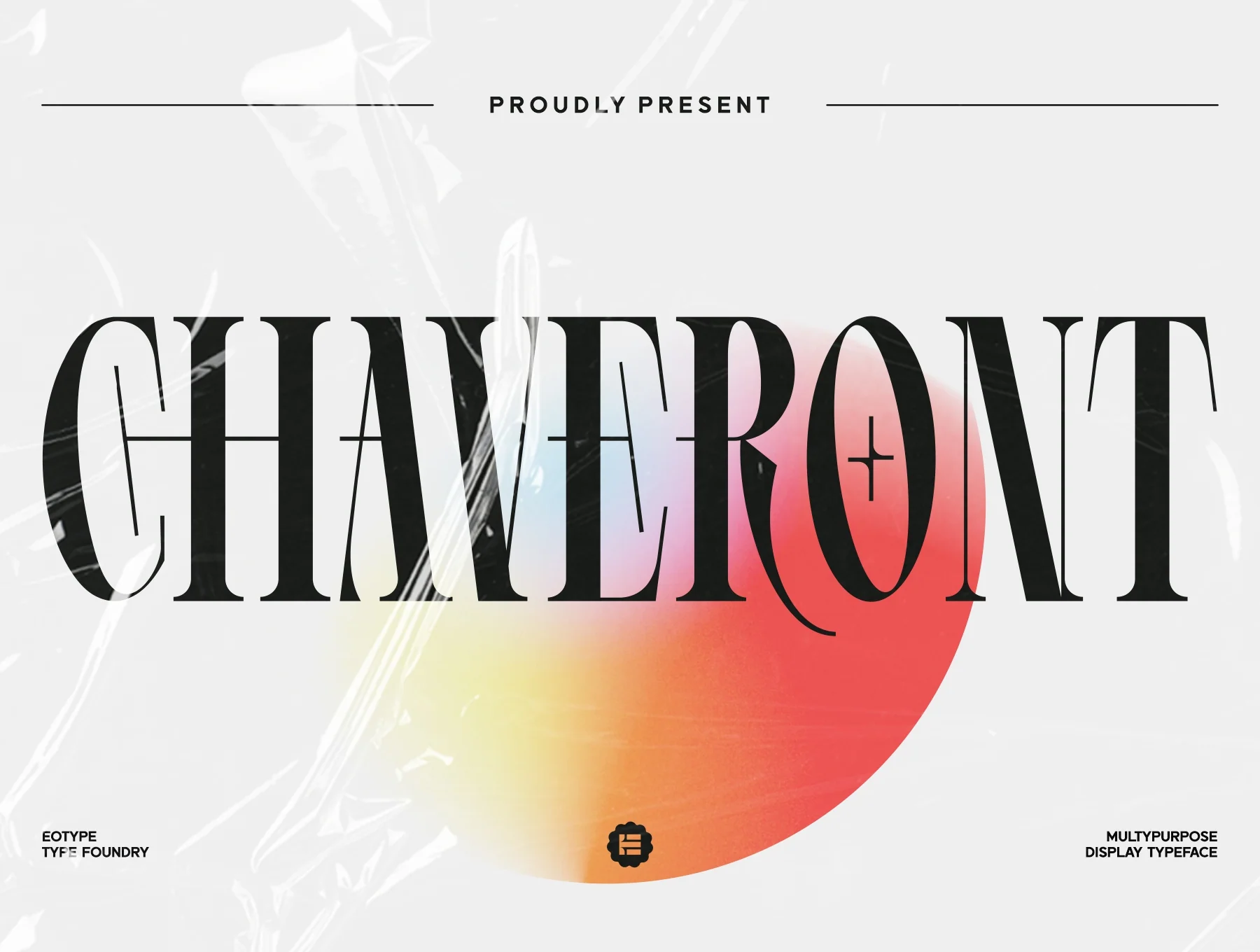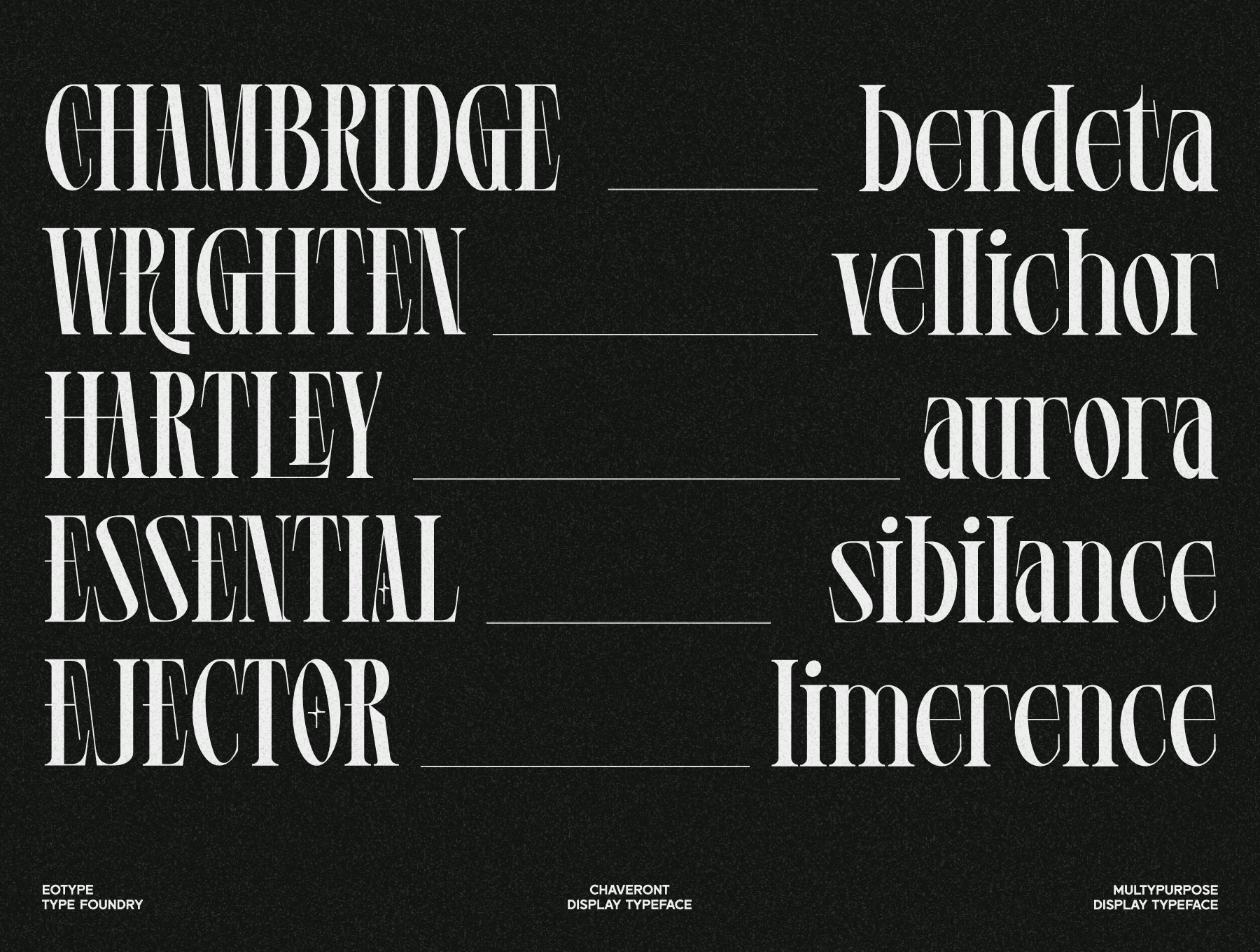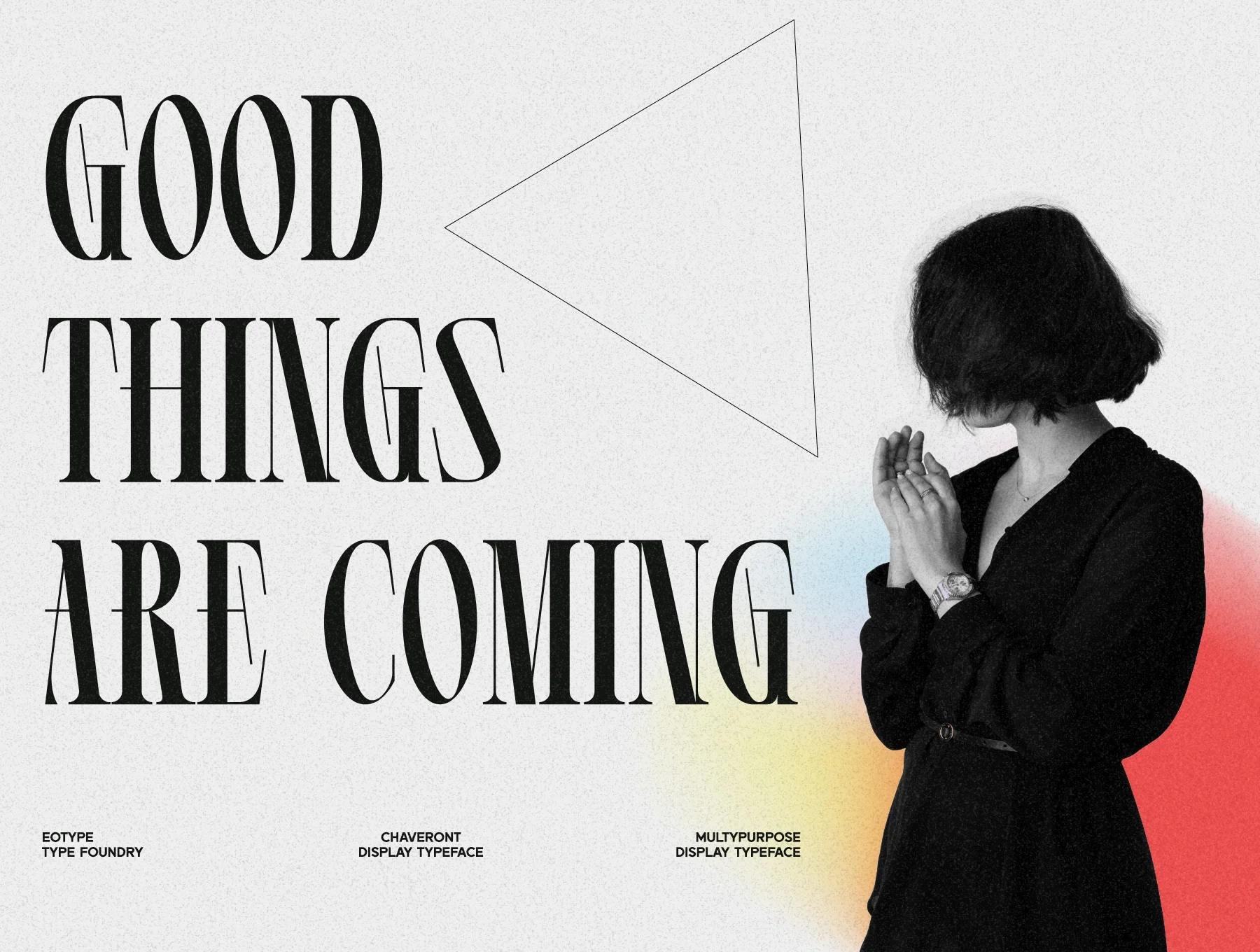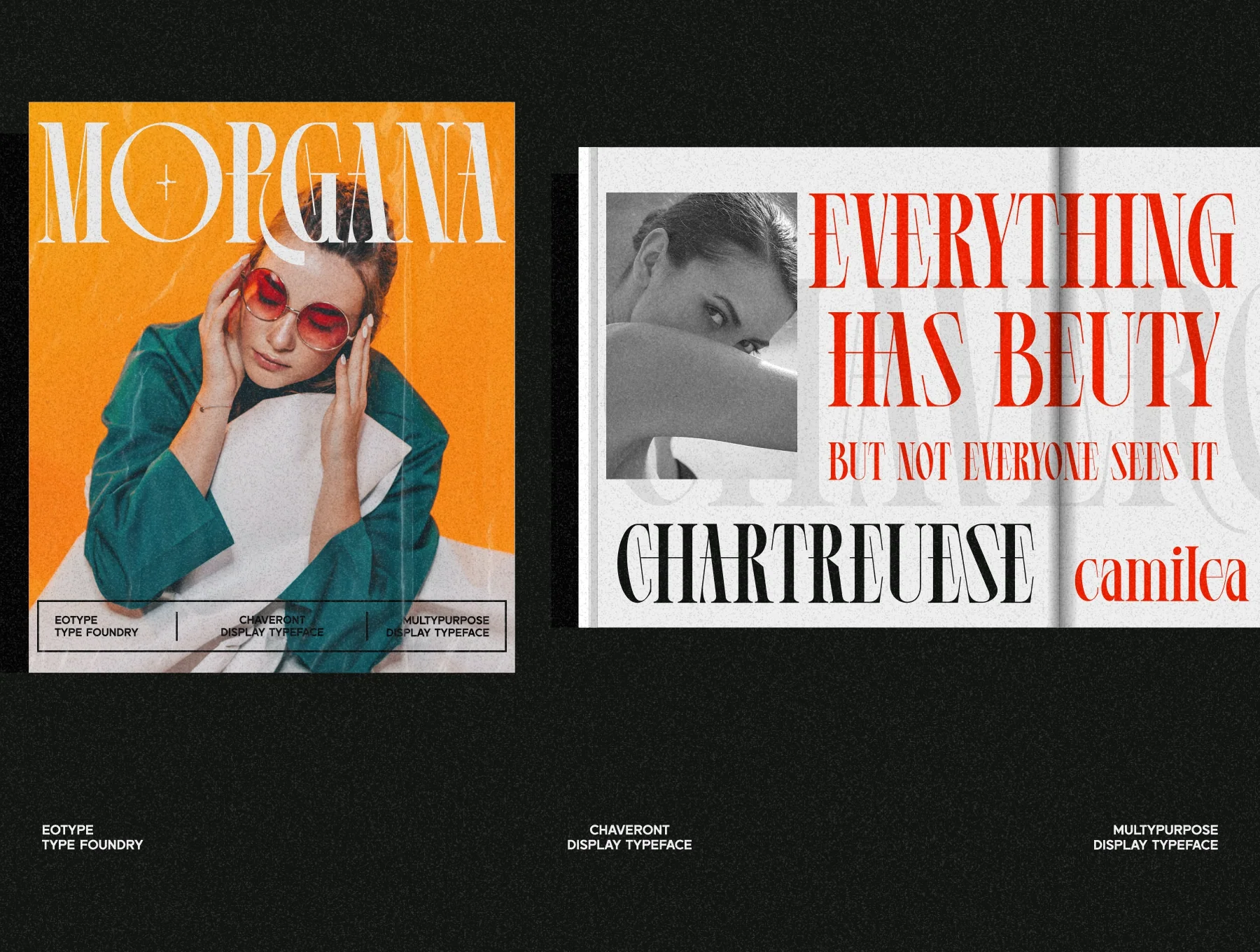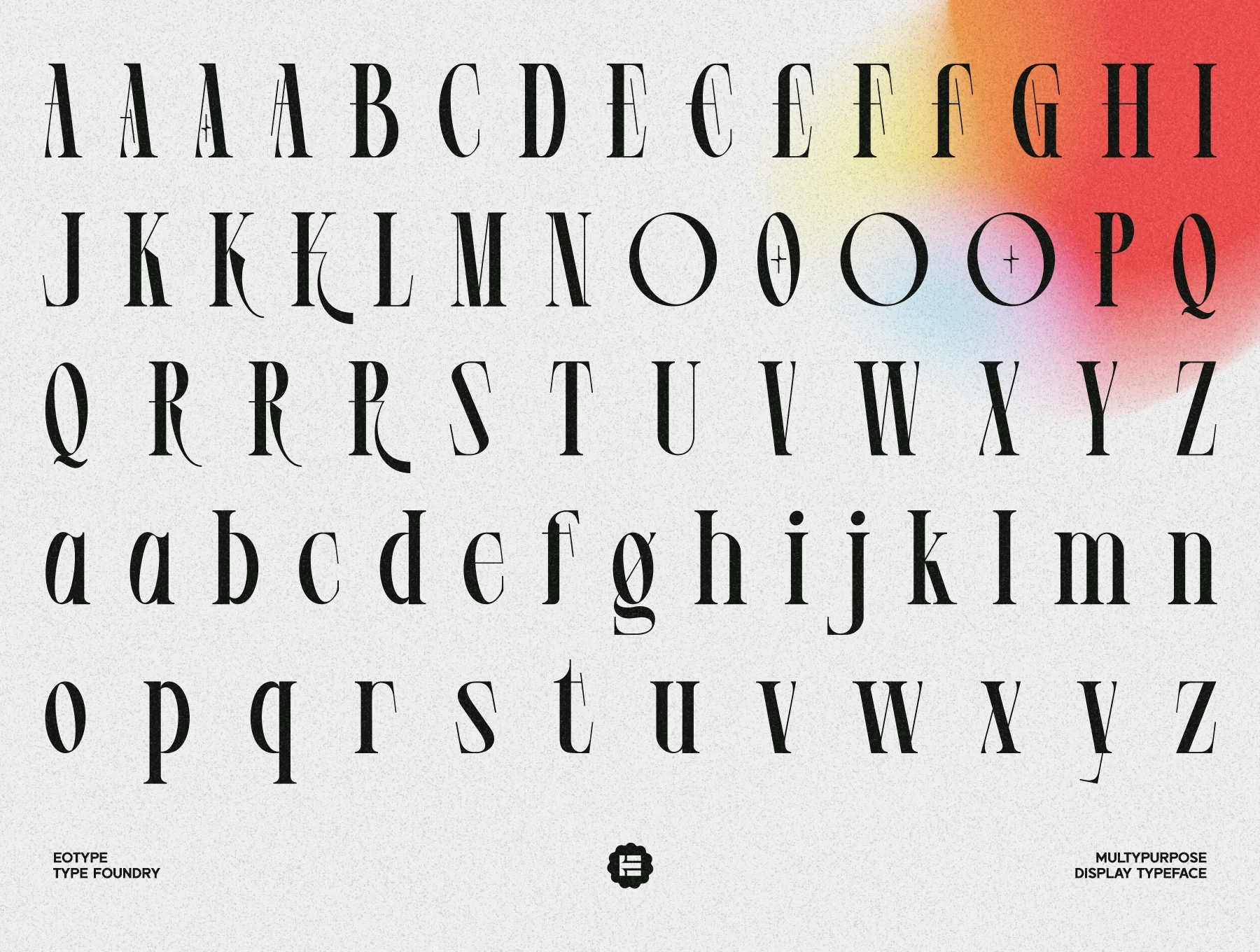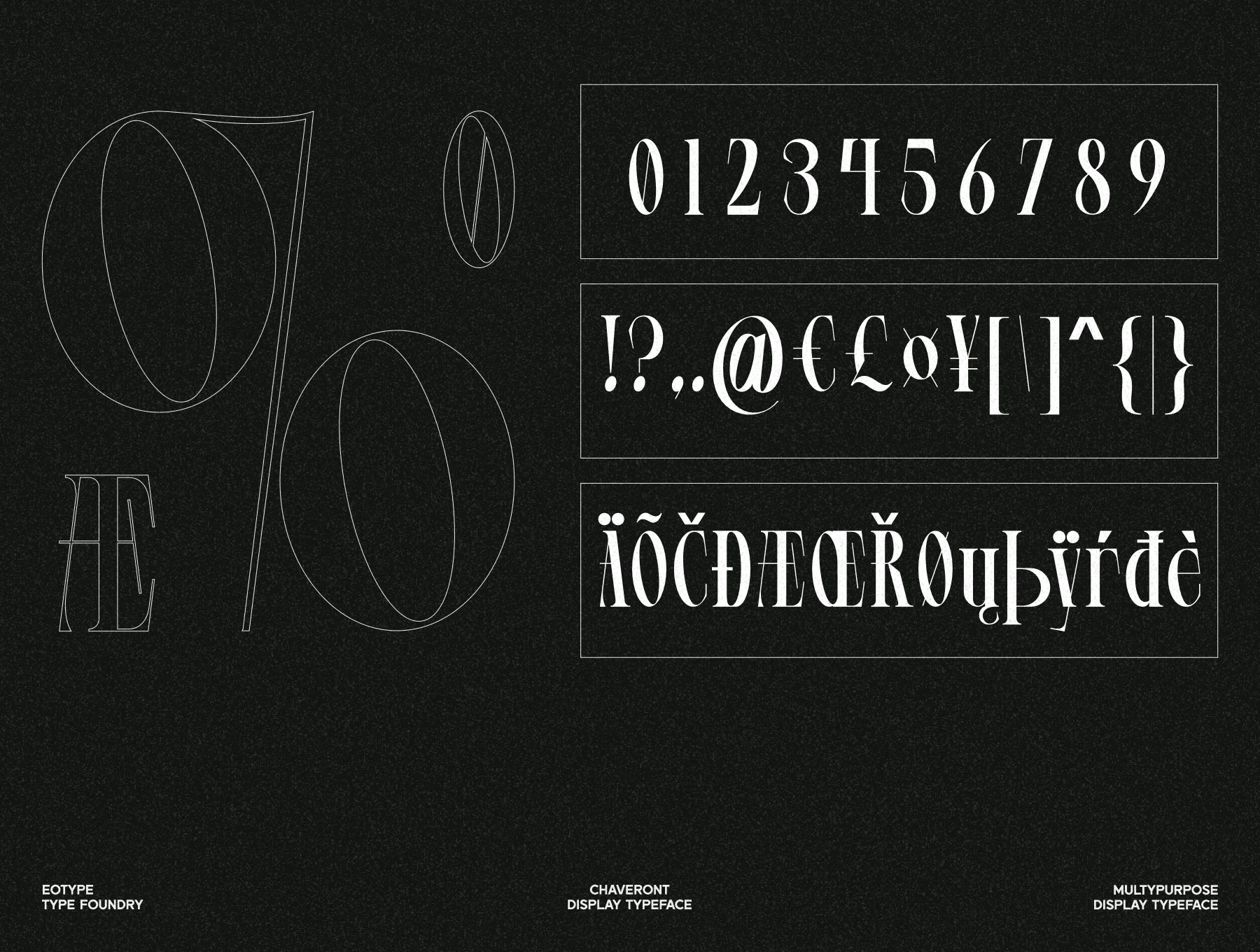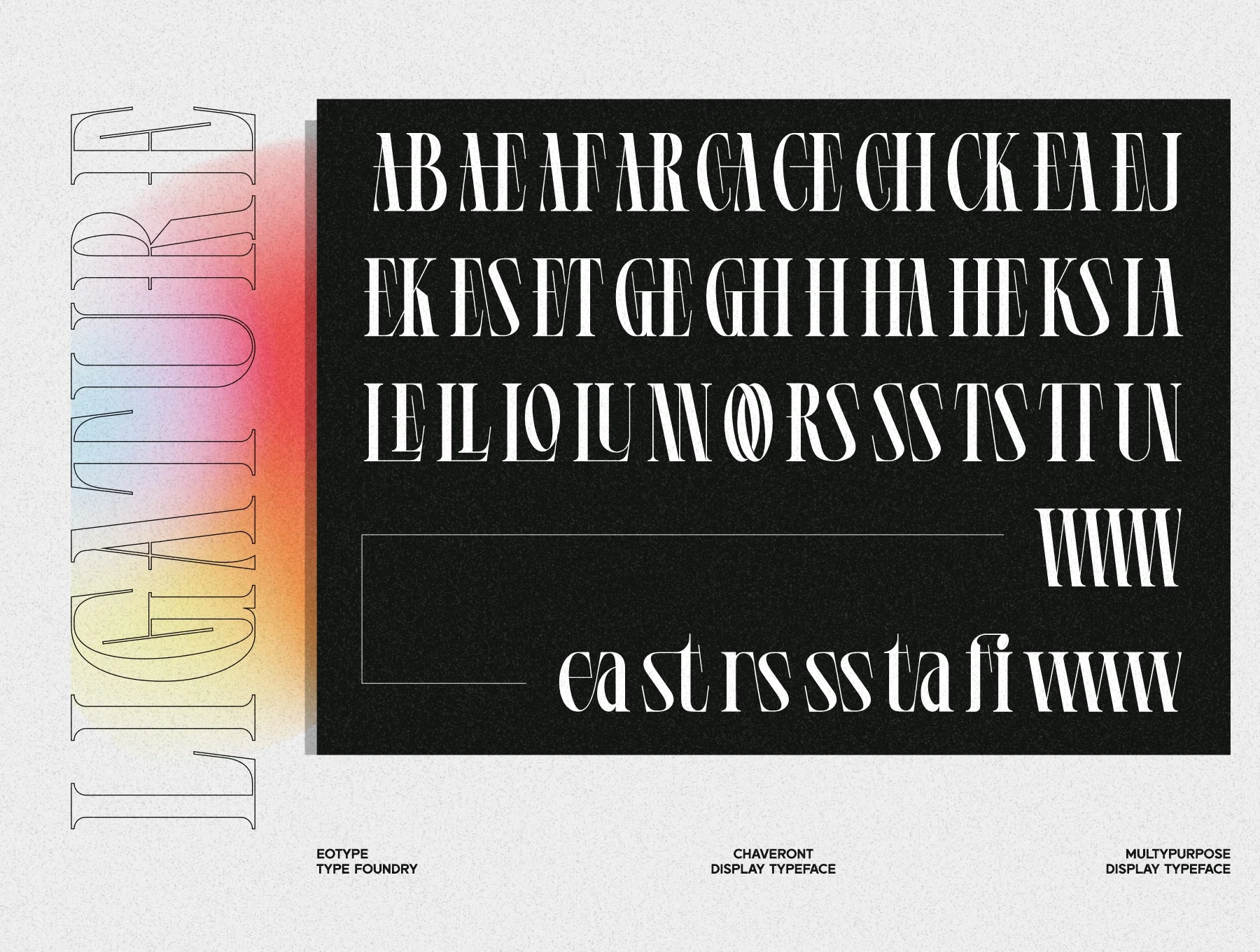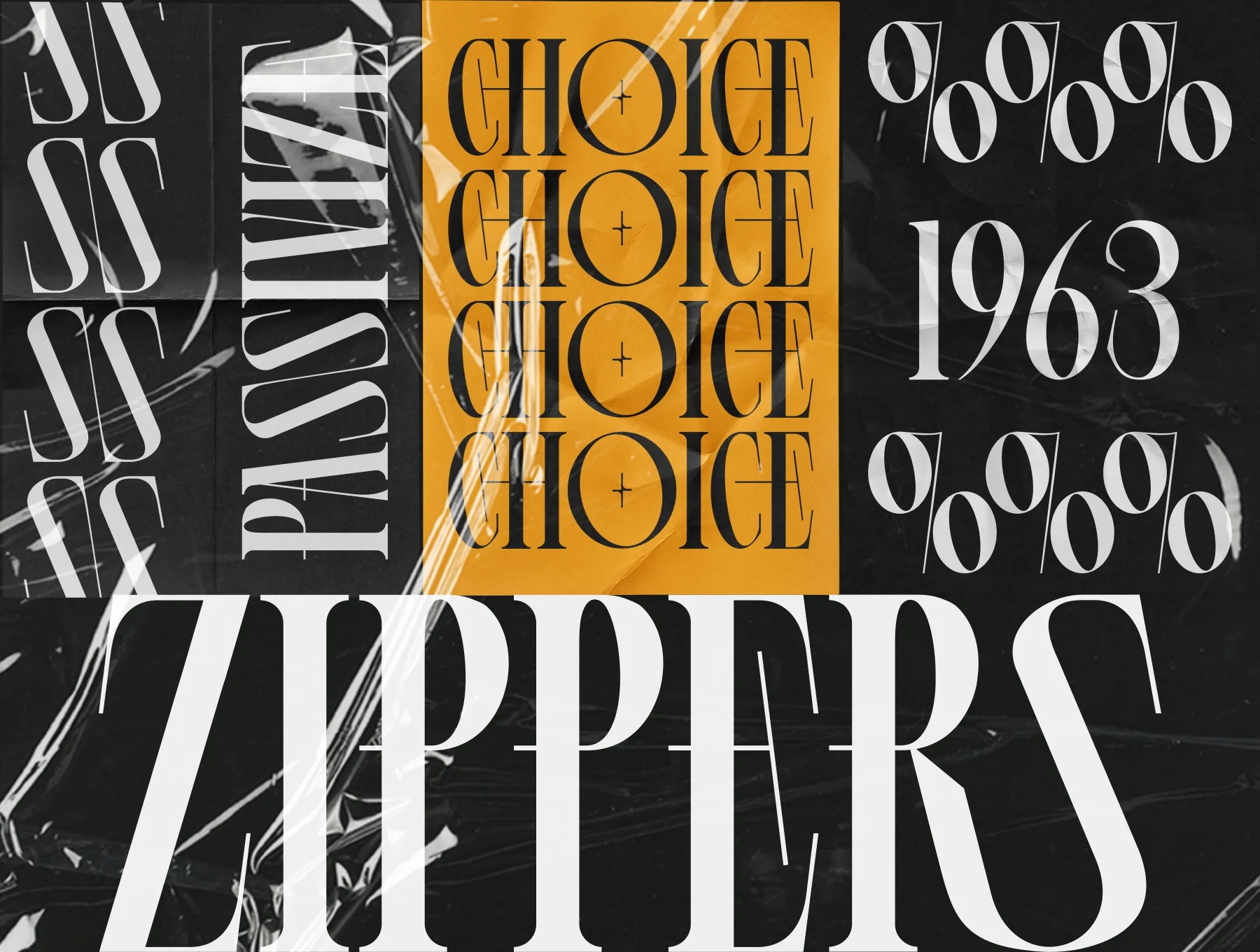
Chaveront Display Font
Chaveront compact typeface
Default glyph
Normal style
Numbers and punctuation marks
Decorative variants and ligatures
Chaveront is a fresh condensed typeface with elegant style and bold character. Ideal for eye-catching logos, magazine layouts, and other creative work, it helps elevate projects with a rich set of alternates and ligatures.